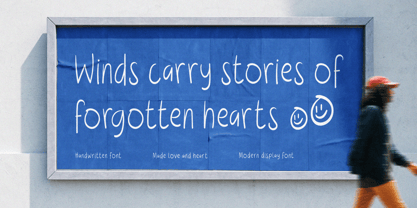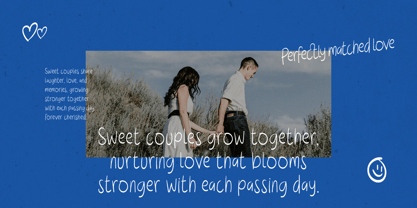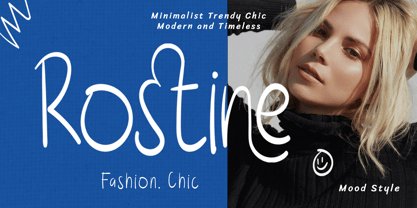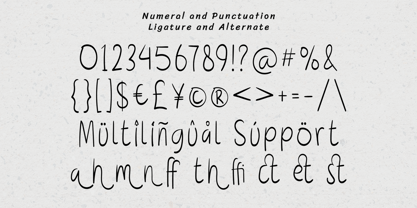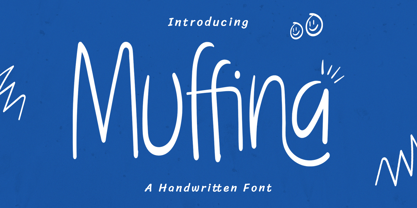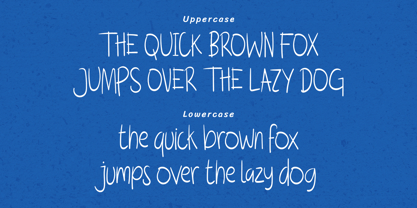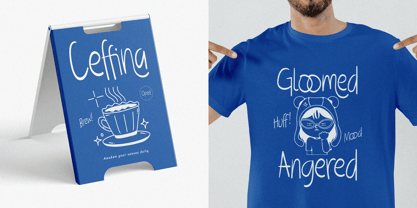
Muffina
by Inviline
The Muffina Font Family was designed by Virgiawan Listanto and published by Inviline. Muffina contains 1 styles. More about this family
Introducing a trendy handwritten font, perfect for adding a personal touch to your designs. Elegant, versatile, and effortlessly chic.
• Uppercase & Lowercase Characters: Fully designed for a complete typographic experience
• Numerals & Punctuation: All the numbers and punctuation marks you need for any design task
• Multilingual Support: Includes characters for multiple languages, ensuring global usability
Designers: Virgiawan Listanto
Foundry: Inviline
Muffina